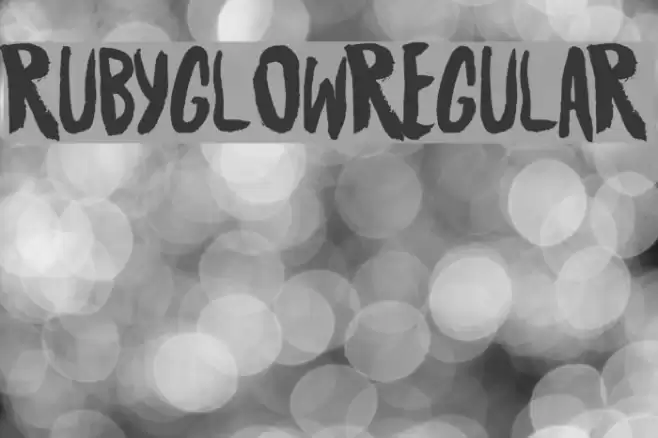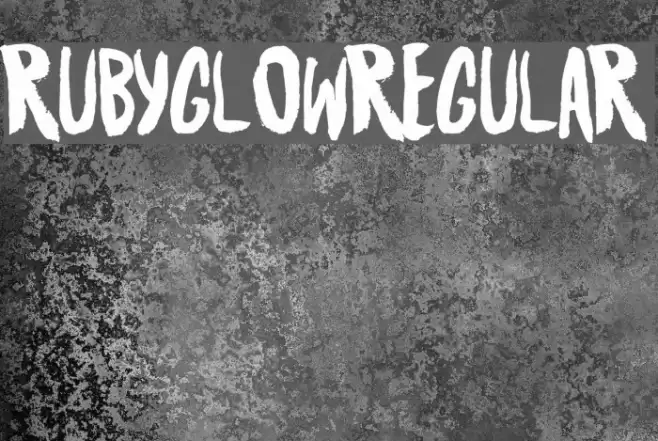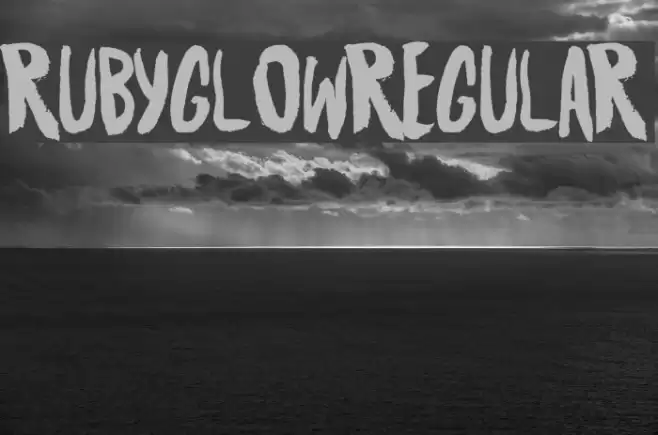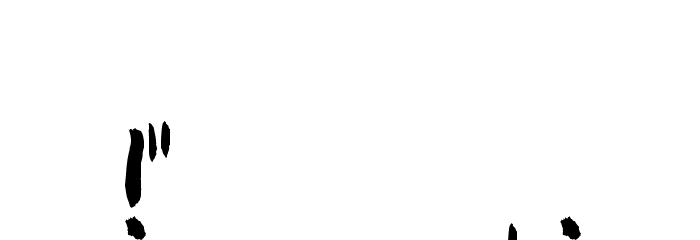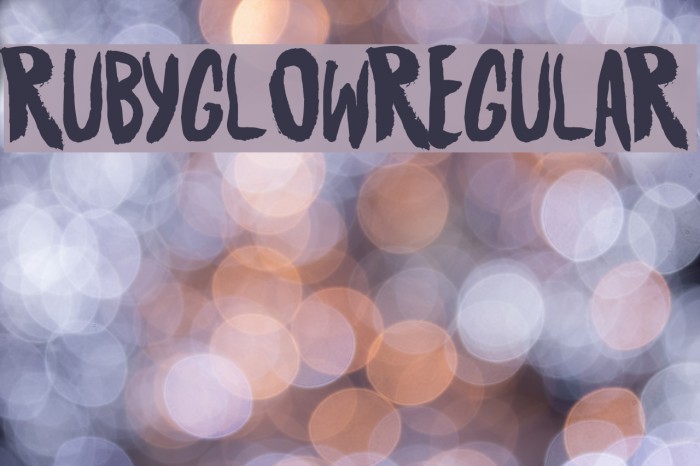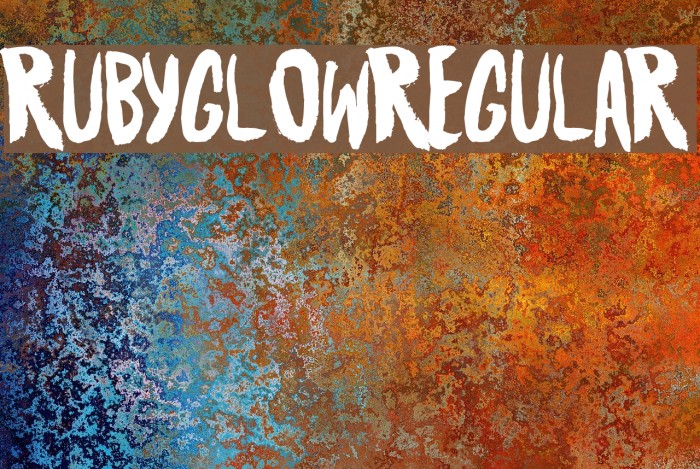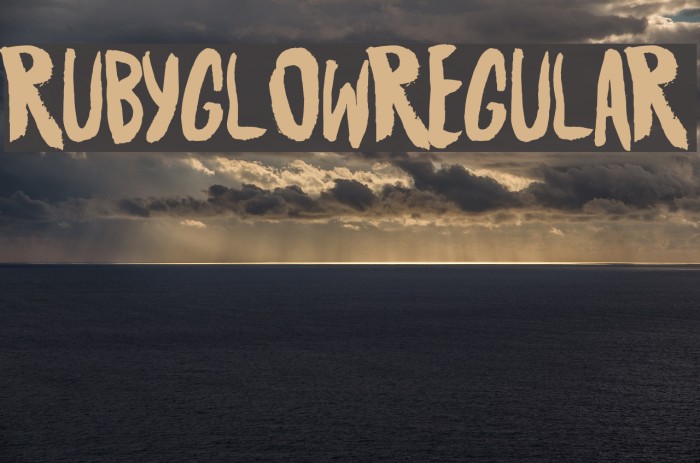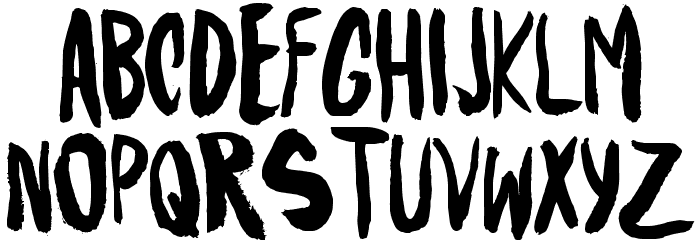
RubyGlow-Regular Font
RubyGlow-Regular Description
This font features a bold and expressive style with a hand-painted appearance. The letters are characterized by their uneven edges and varying stroke thickness, giving a dynamic and artistic feel. The uppercase letters are prominent and slightly irregular, adding to the handcrafted aesthetic. The font exudes a sense of energy and creativity, making it suitable for projects that require a bold statement. The overall design is both eye-catching and distinctive, perfect for capturing attention.
A bold, hand-painted style font with expressive, uneven strokes from Uncategorized fonts.
- Proposed Projects: Ideal for posters, album covers, branding, and any creative projects that require a bold, artistic touch.
- Overall Style: Artistic, Expressive